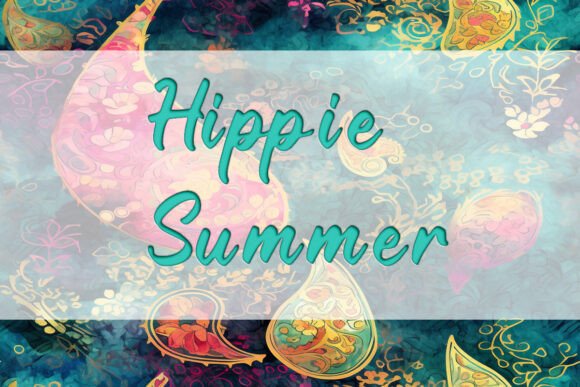
Introduction to Hippie Summer Script Font
As a designer, have you ever been searching for that perfect font to capture the essence of a carefree summer day? The sun-kissed vibes, the laid-back atmosphere, and the sense of freedom that comes with it? If so, you’re in luck because we’ve got just the thing for you – the Hippie Summer Script Font.
This high-quality design resource is more than just a pretty face; it’s a valuable tool for any creative project that needs a touch of whimsy and charm. With its effortless, handwritten style, Hippie Summer Script Font is perfect for adding a personal touch to your designs, whether it’s a free download for a social media aesthetic or a transparent background for a Cricut project.
Whether you’re a seasoned pro or just starting out, Hippie Summer Script Font is a must-have addition to your design arsenal. So why settle for ordinary when you can have a font that’s truly extraordinary?
Key Features of Hippie Summer Script Font
- Unique, hand-drawn design with a carefree and playful feel, perfect for creative projects.
- High-quality, professional font suitable for a variety of design resources, including logos, signage, and advertising materials.
- Comes in a transparent background, allowing for easy layering and customization in design applications.
- Features a large character set, including uppercase and lowercase letters, numbers, and punctuation marks, for comprehensive typography support.
Honest Review: Hippie Summer Script Font
I recently came across the Hippie Summer Script Font, and I must say, it’s a beautiful addition to any design project. This high-quality script font is perfect for those looking to add a touch of elegance and sophistication to their creative project.
What works well: ✨ The font’s unique, flowing design makes it ideal for use in titles, headings, and even quotes. The script font also works well in digital and print design, thanks to its high level of detail and versatility. Additionally, the transparent background makes it easy to use in various design contexts.
- Unique, flowing design
- High level of detail
Overall, I’m impressed with the Hippie Summer Script Font. While it may not be the best choice for every design project, it’s a great addition to any design resource and is sure to add a touch of creativity and elegance to any project.
Common Use Cases for Hippie Summer Script Font
The Hippie Summer Script Font is ideal for a variety of creative projects, including wedding invitations, social media graphics, and posters. It’s also a great choice for designers looking for a unique and high-quality design resource.